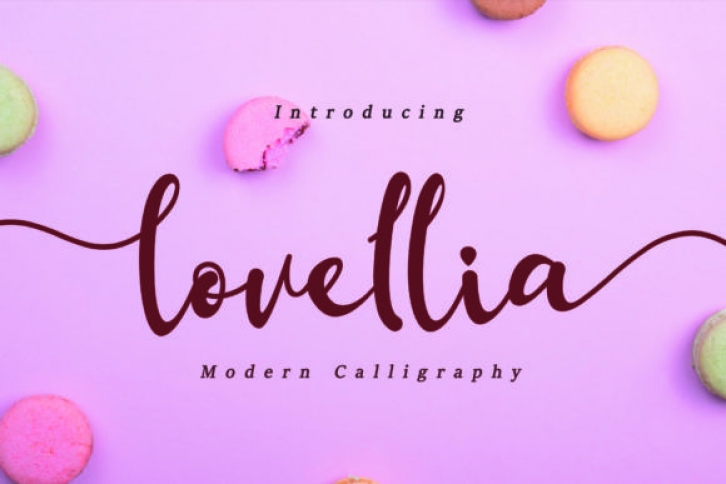
Lovellia is a sweet and modern handwritten font. It looks stunning on wedding invitations, thank you cards, quotes, greeting cards, logos, business cards and every other design which needs a handwritten touch.